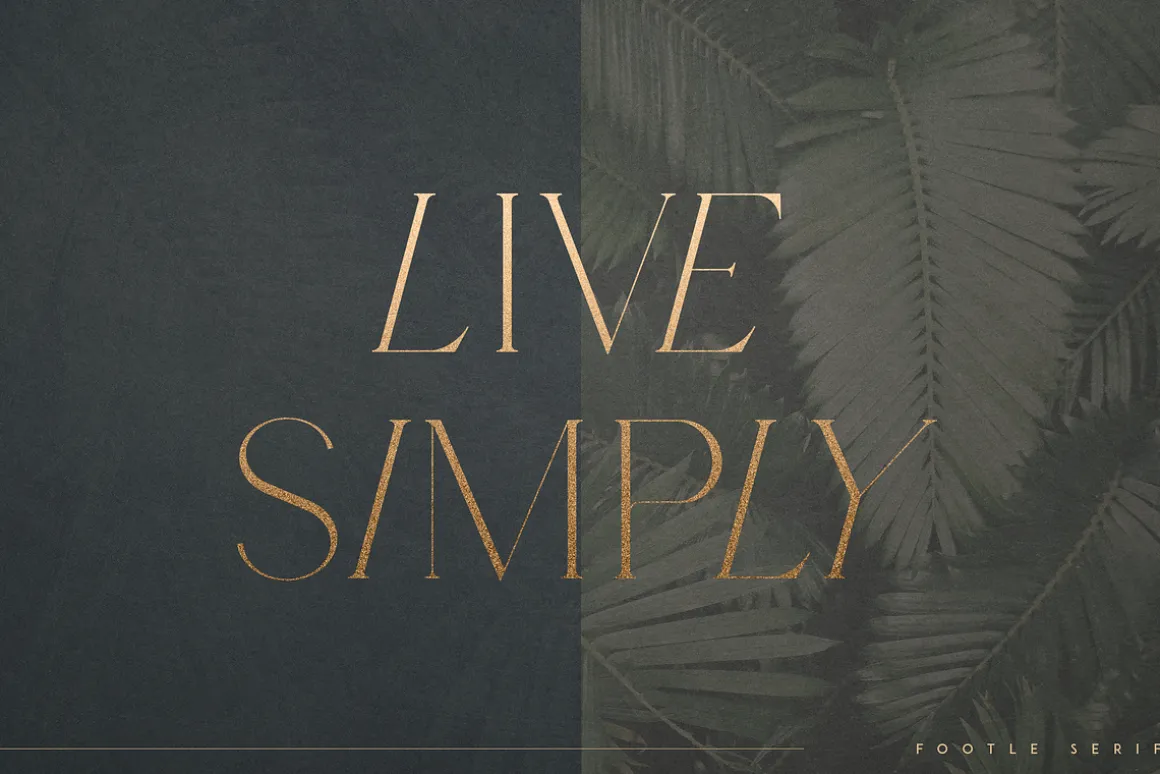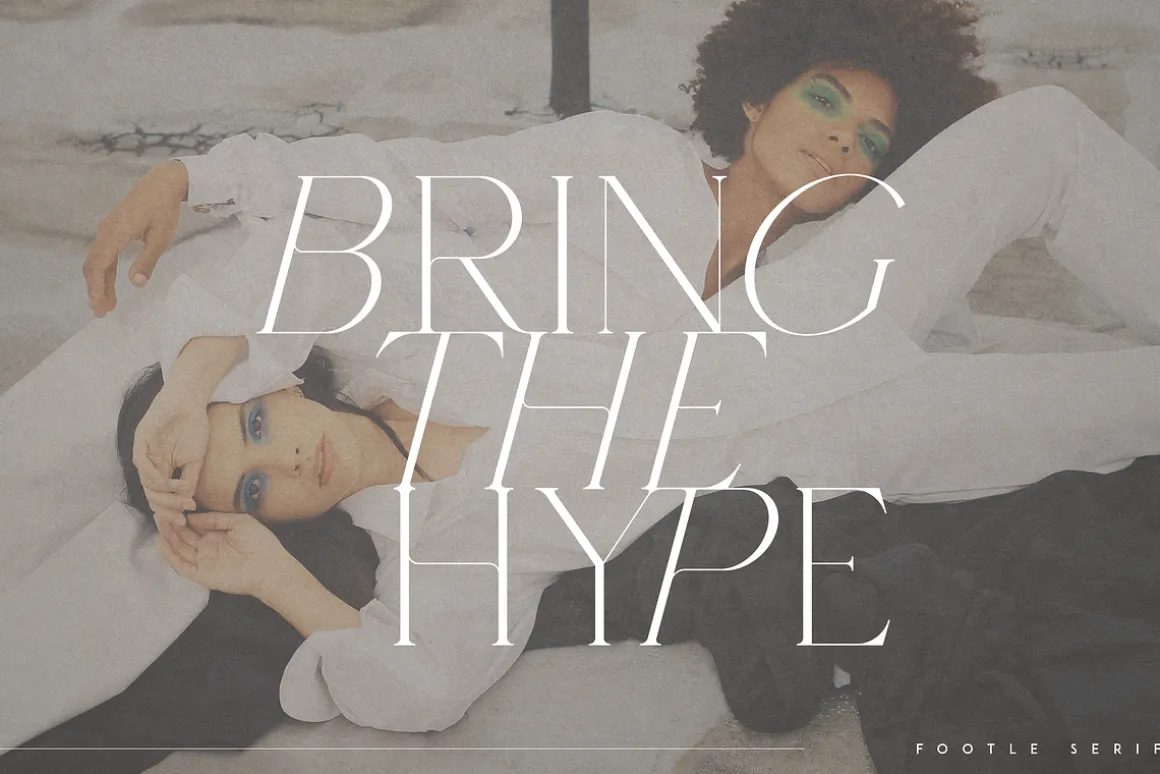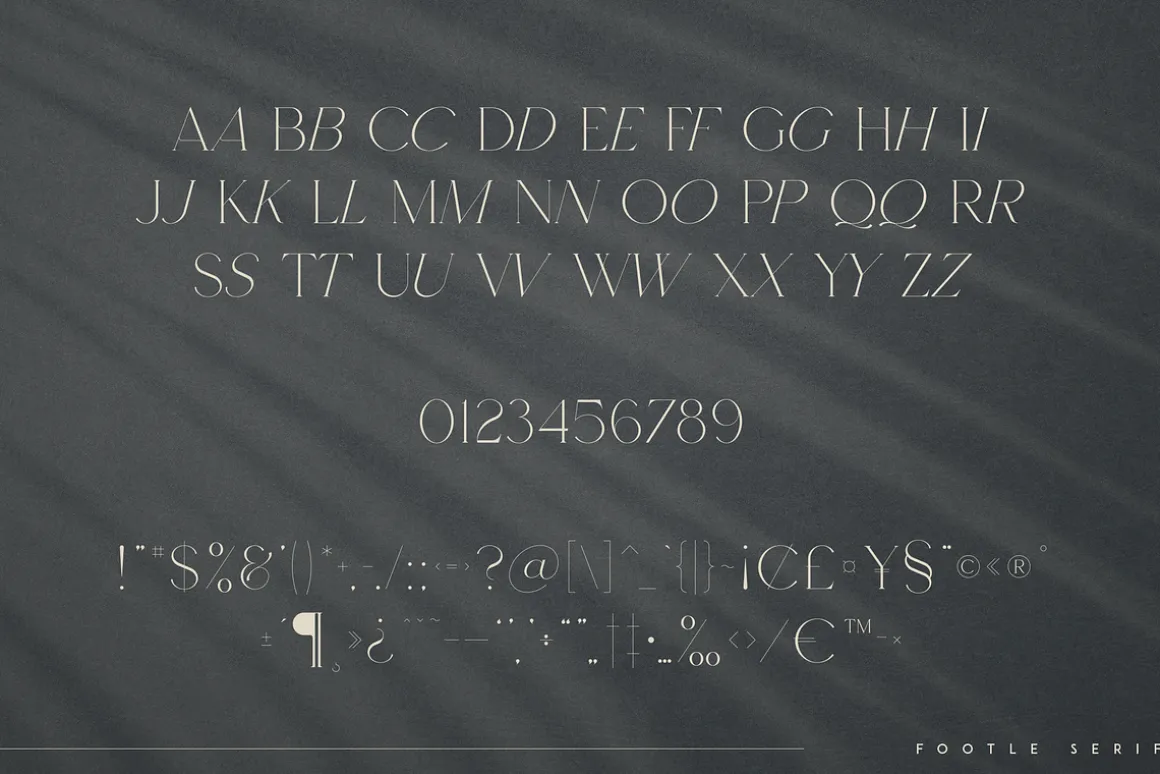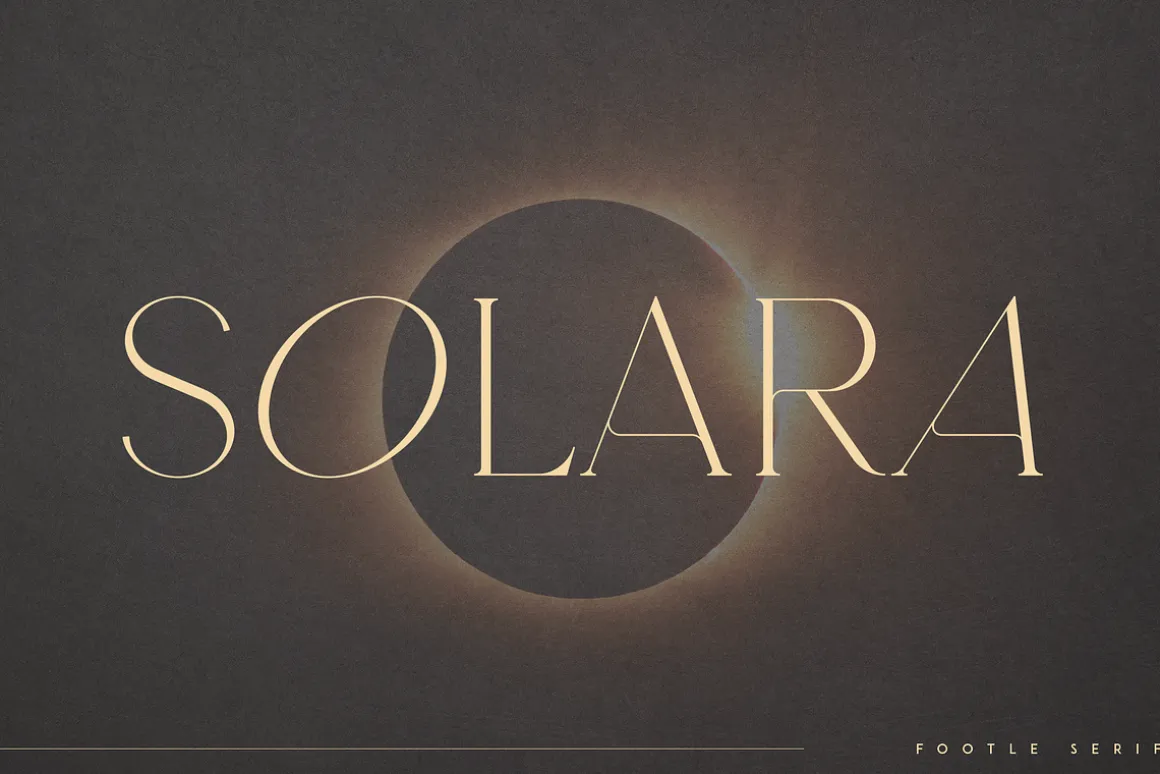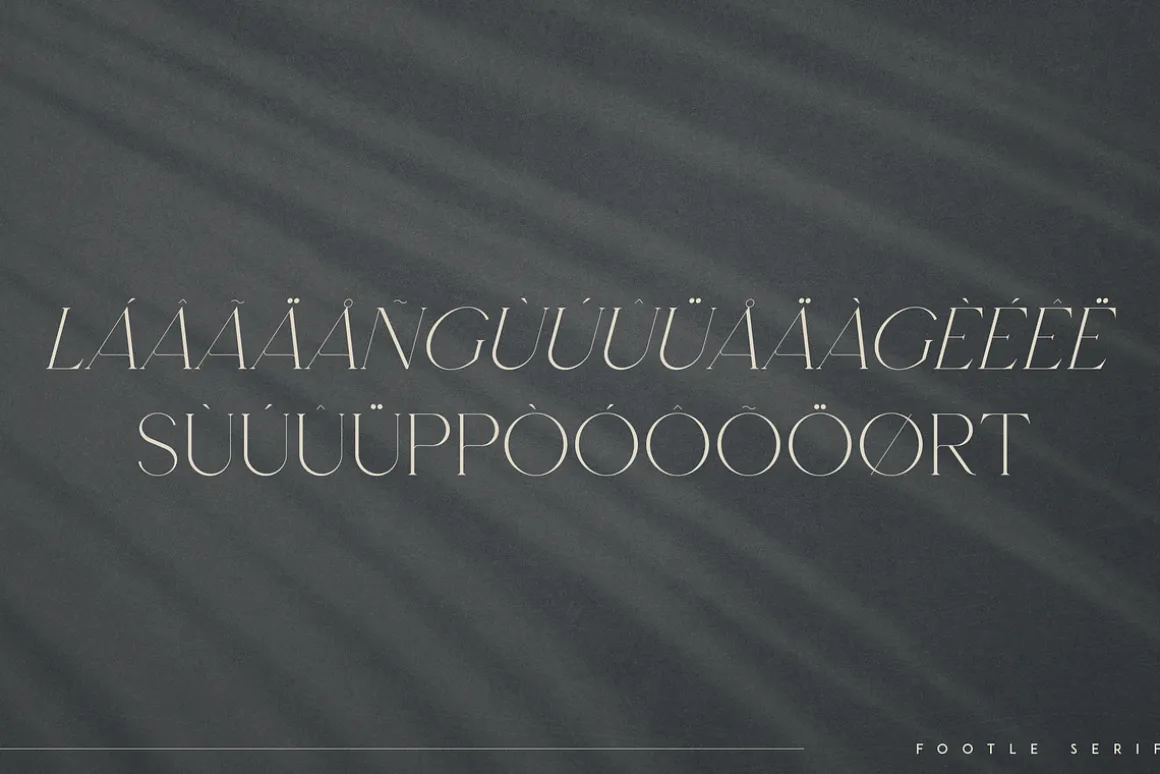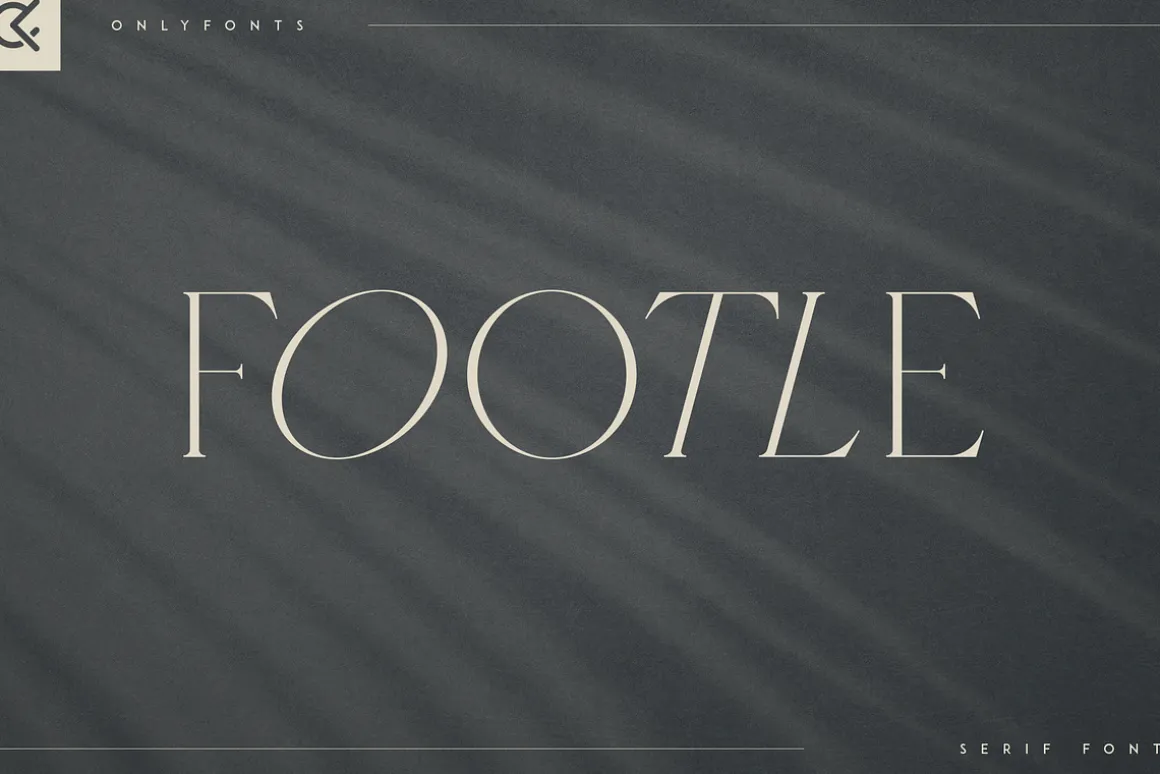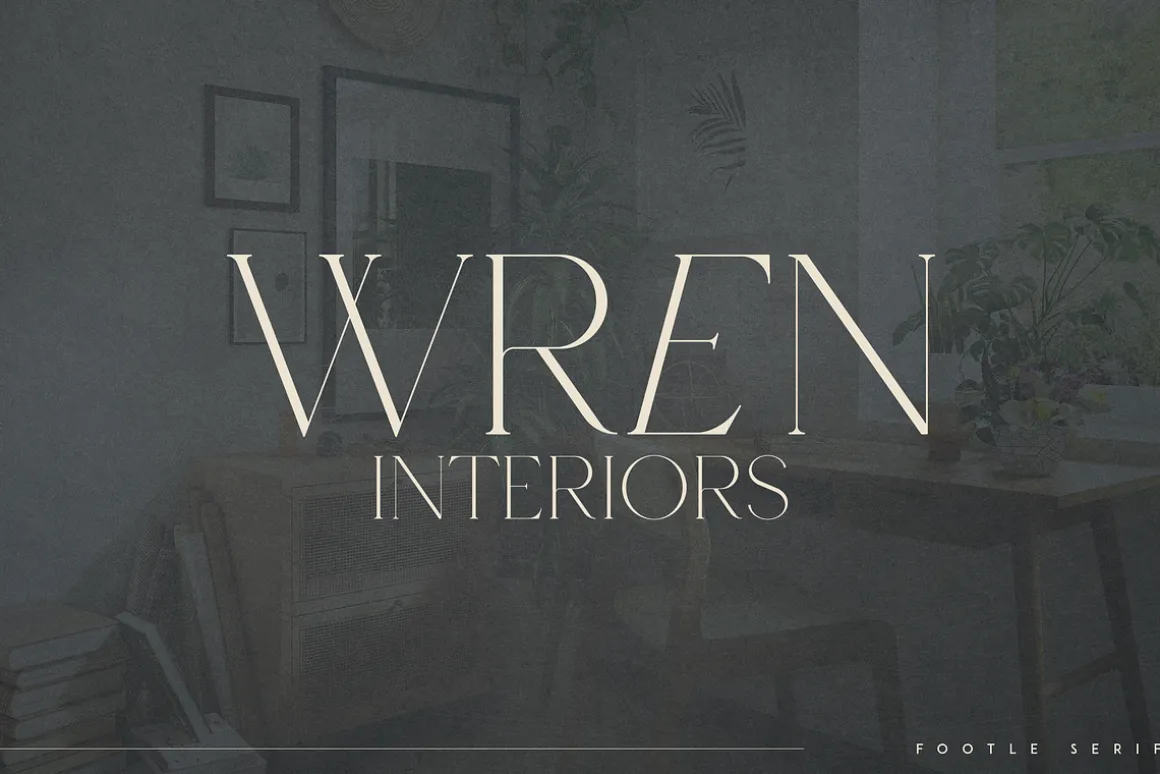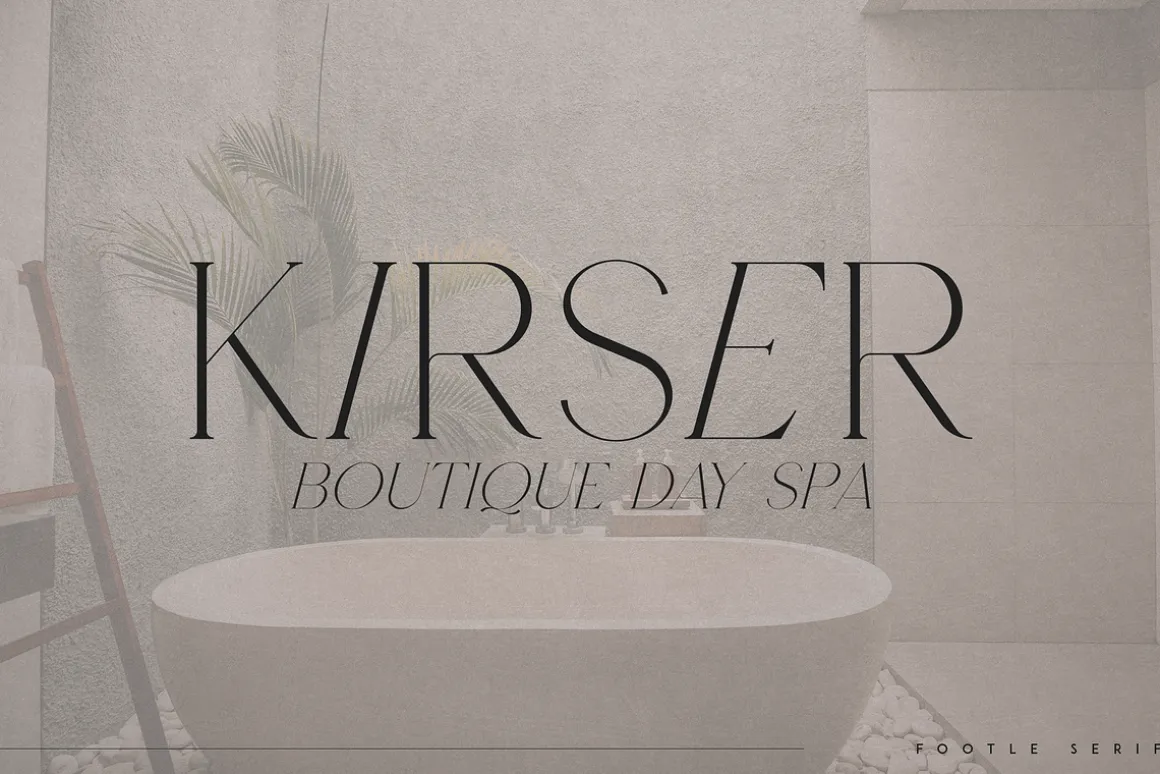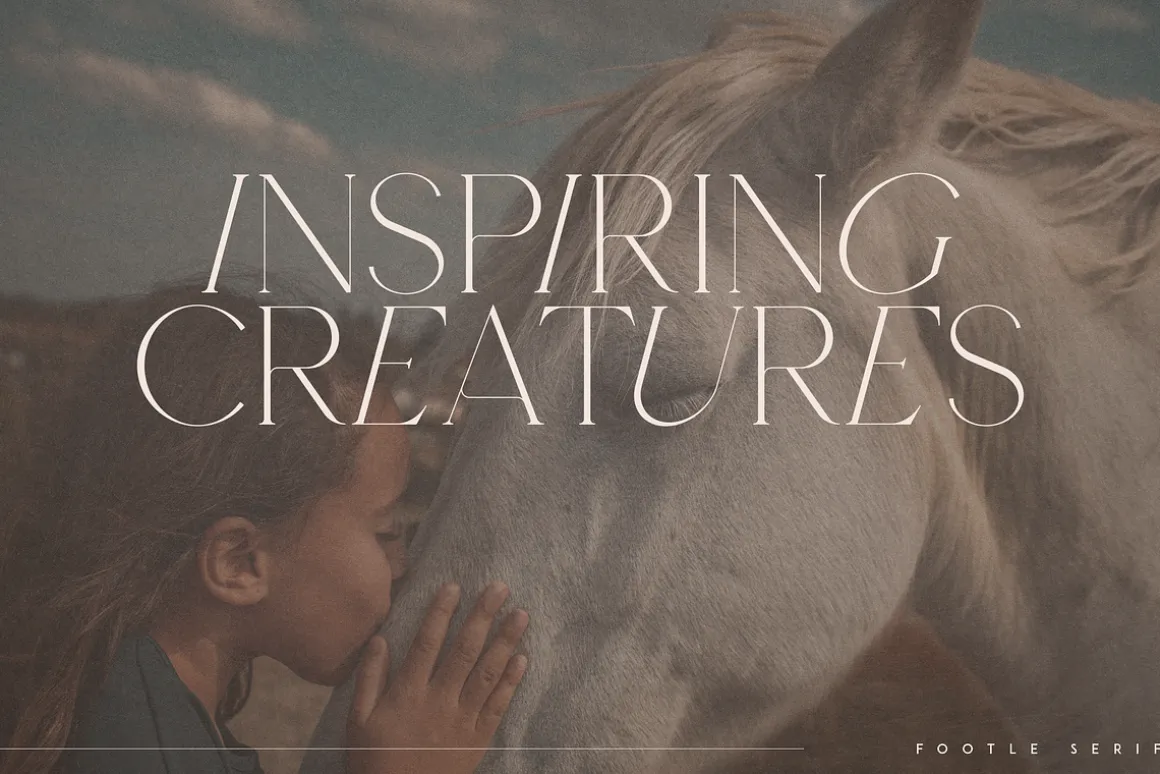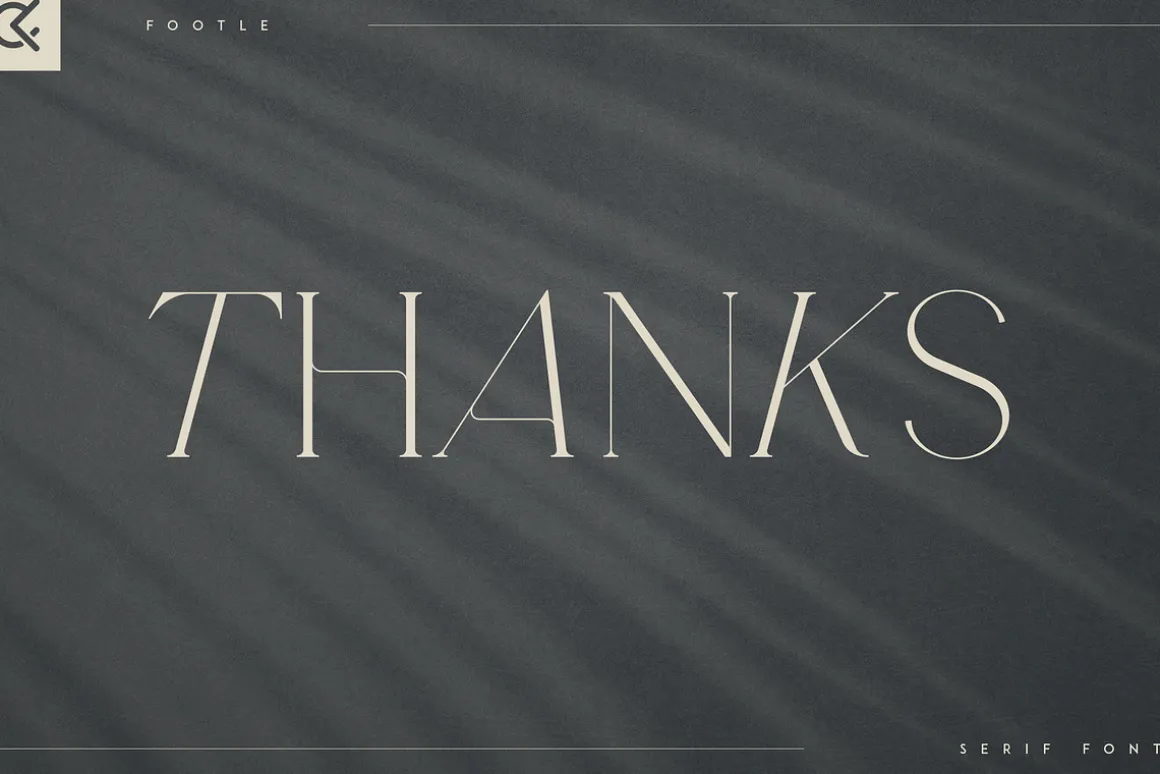
Introducing Footle – serif font
Footle is gentle and elegant font combined in it regular and italic styles,loaded with multilingual support.It’s a very versatile font that works great in large and small sizes.
This font is perfect for branding projects, home-ware designs, product packaging, magazine headers – or simply as a stylish text overlay to any background image.
FEATURES
- Uppercase, numeral, punctuation & Symbol
- Uppercase letters -regular glyphs
- Lowercase letters – italic glyphs
- Multilingual support